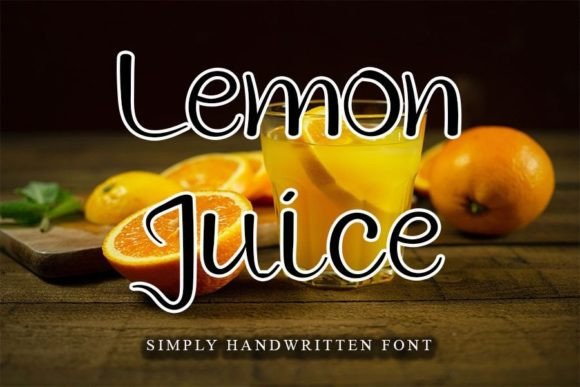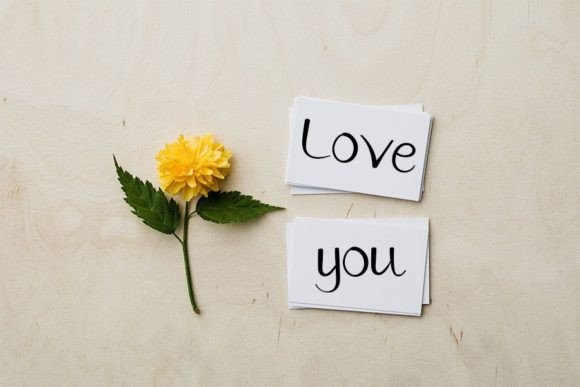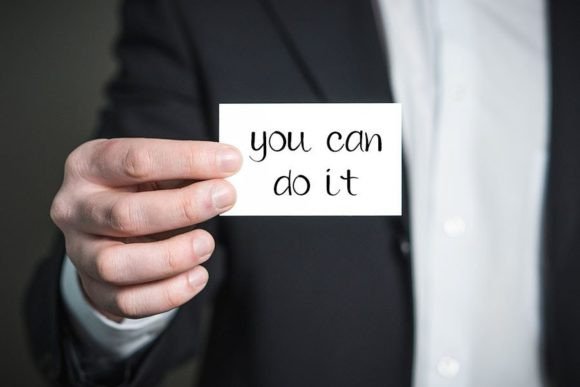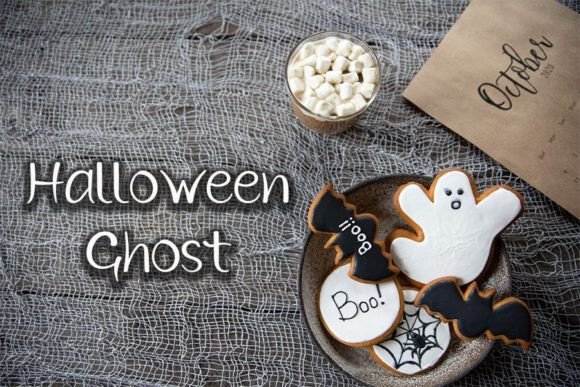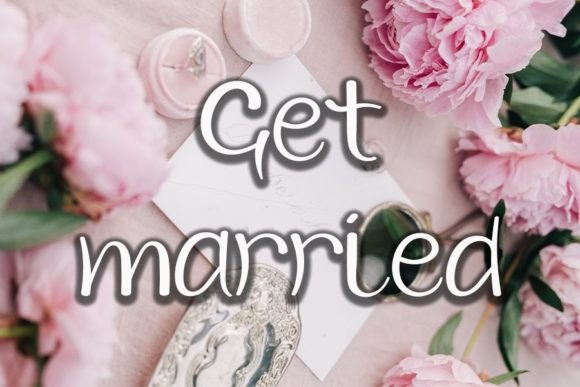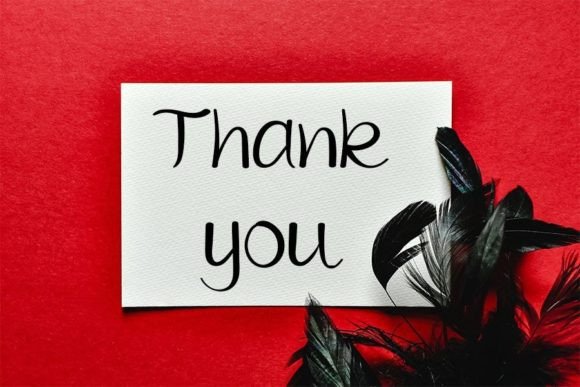
Lemon Juice Font
About Lemon Juice Font
“Lemon Juice” is a friendly handwritten font that has been meticulously designed to become a true favorite in your font collection. It seamlessly blends classy calligraphic influences with a contemporary and fresh feel, making it a versatile choice for a variety of creative projects. Add “Lemon Juice” to your designs, and watch them become outstanding with its unique charm.
The calligraphic influences in “Lemon Juice” contribute to its elegant and refined appearance. The carefully crafted letterforms reflect the artistry of traditional calligraphy, imparting a sense of grace and sophistication to the font. This makes it an excellent option for projects that require a touch of timeless and classy aesthetics.
Simultaneously, the friendly and contemporary feel of “Lemon Juice” ensures that it remains relevant and approachable. The font effortlessly adapts to modern design sensibilities, making it suitable for a wide range of applications in today’s creative landscape.
Whether you’re working on branding, invitations, social media graphics, or any other design project, “Lemon Juice” brings a delightful and distinctive quality to your typography. It adds a personal touch to your creations, making them stand out with a friendly and approachable vibe.
In branding, “Lemon Juice” becomes a key element in creating a memorable and personable brand identity. Its unique blend of classic and contemporary elements sets your brand apart, making a positive and lasting impression on your audience.
For invitations, the font adds a touch of warmth and charm. Whether used for wedding invitations, party announcements, or any event where a friendly and elegant touch is desired, “Lemon Juice” enhances the overall invitation design.
In social media graphics and marketing materials, the font brings a playful yet sophisticated vibe. Its friendly demeanor makes it suitable for conveying messages in a visually appealing and approachable manner.
Overall, “Lemon Juice” is a font that invites you to embrace its friendly and versatile nature. Its ability to balance traditional calligraphic influences with a contemporary feel makes it an excellent choice for designers seeking a font that adds a touch of timeless elegance and modern charm to their projects.